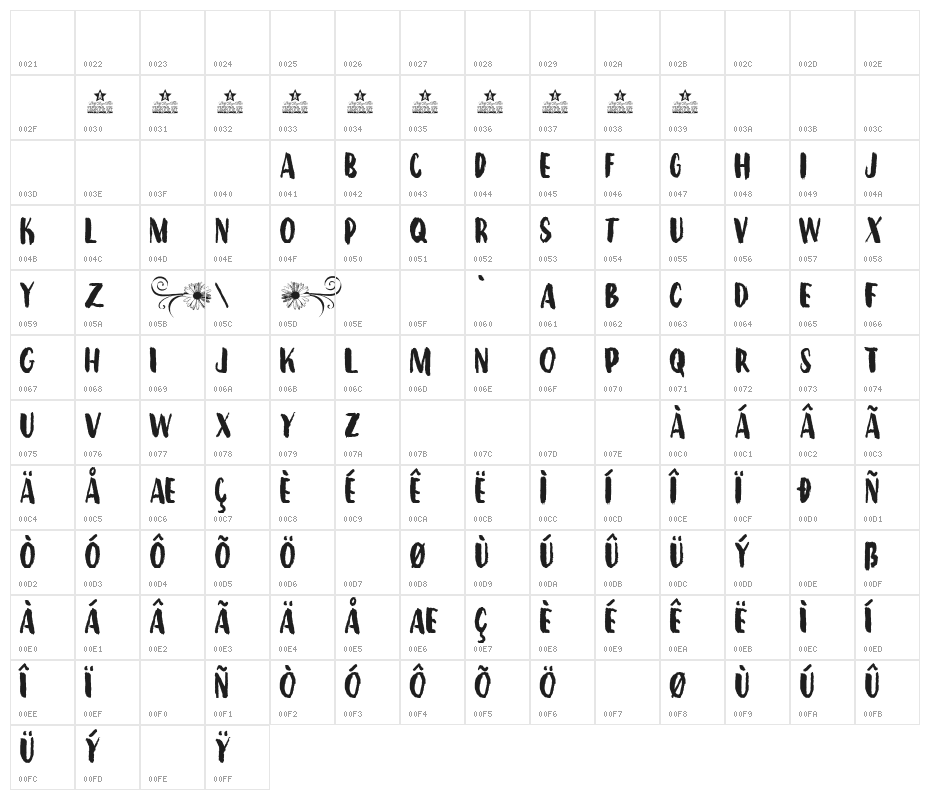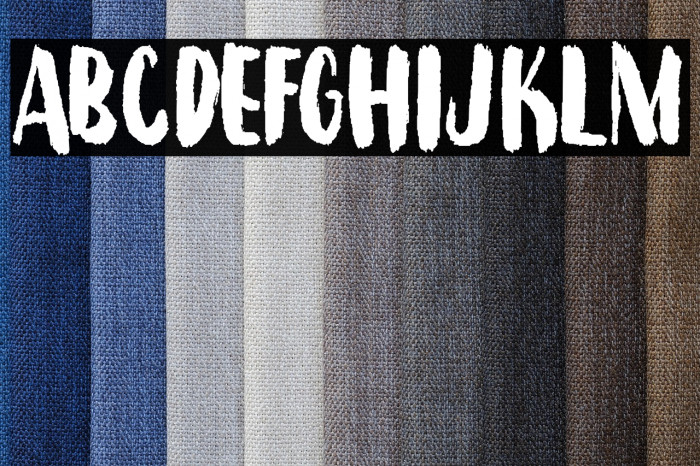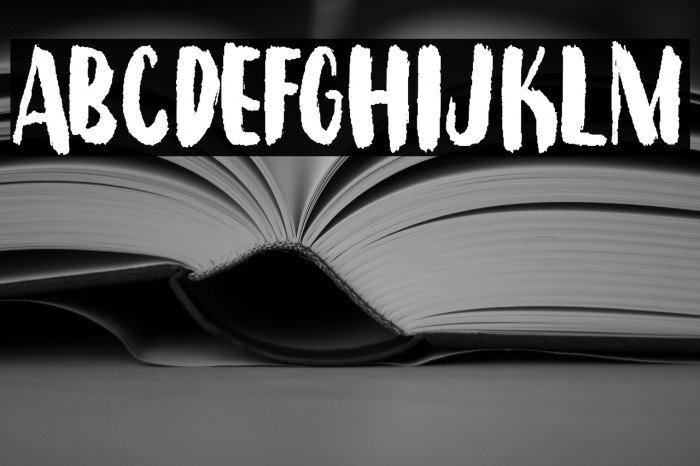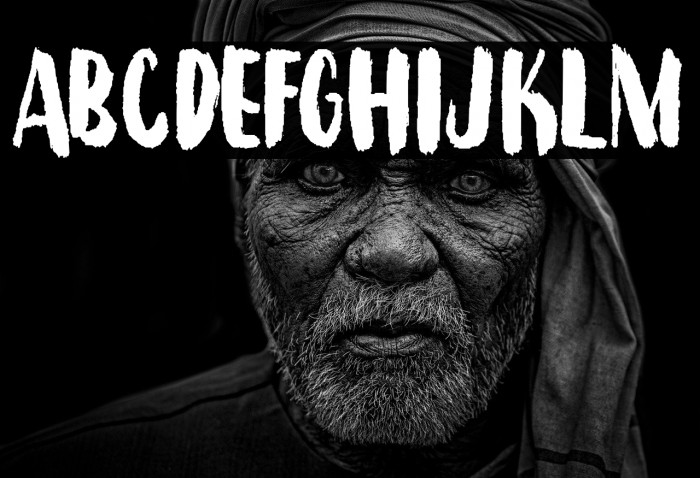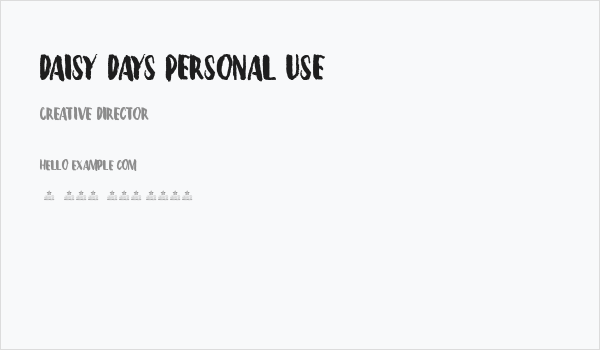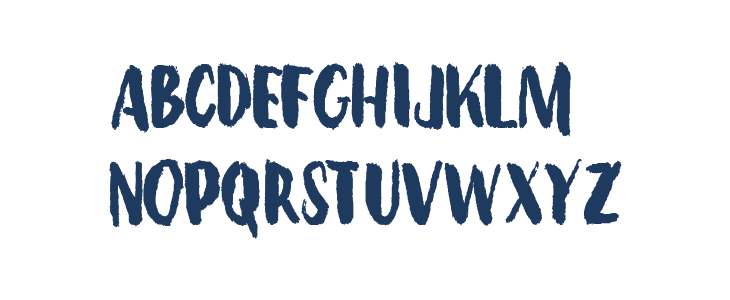
Daisy Days Personal Use Font
Daisy Days Personal Use Description
This font features a bold, brush-like style with a hand-painted appearance. The letters are uppercase and exhibit a dynamic, energetic feel, characterized by uneven edges and varying stroke thicknesses. The overall look is artistic and expressive, making it suitable for creative projects. The font's texture gives it a raw, organic quality, adding a sense of movement and spontaneity. It captures attention with its bold presence and is ideal for designs that require a strong visual impact.
Overall StyleArtistic, Expressive
Proposed ProjectsIdeal for posters, album covers, branding, and any project needing a bold, artistic touch.